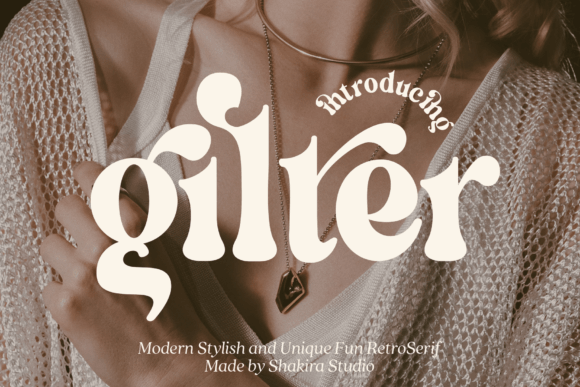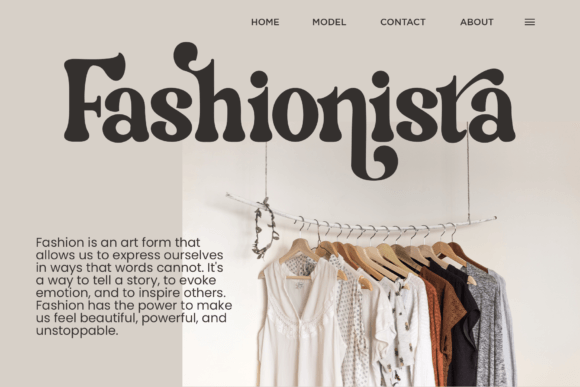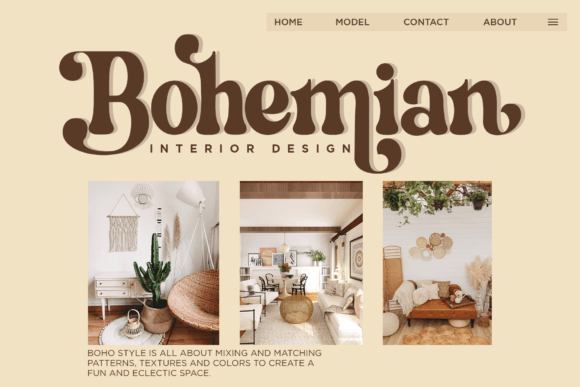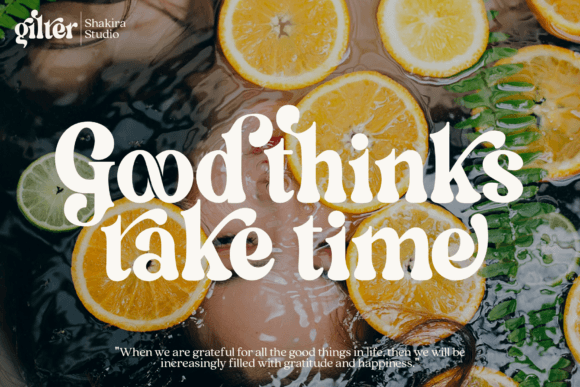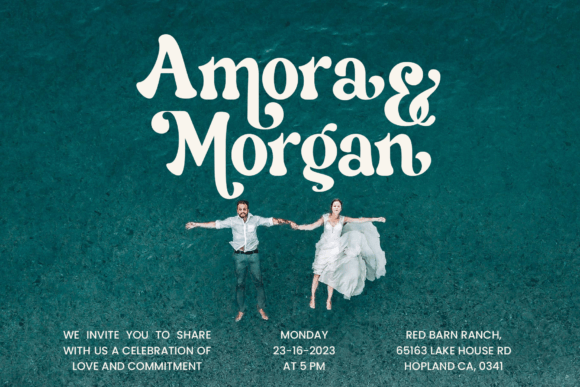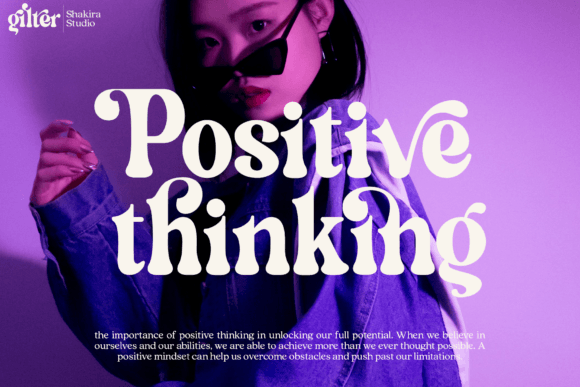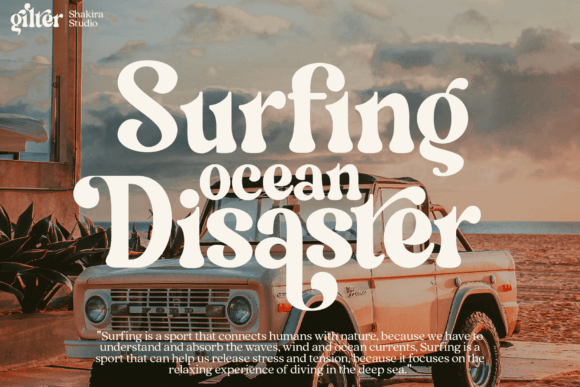
Gilter Font
Gilter is a font created specifically to give your designs a modern, stylish, and unique feel. With a combination of fun retro serif shapes and an elegant appearance, this font is the right choice for designs that want to display a creative impression and be different from the others.
Gilter presents strong and tough-looking letter characters but still maintains a friendly and welcoming impression. This makes this font very suitable for various types of projects, from branding, packaging, and posters, to website design.